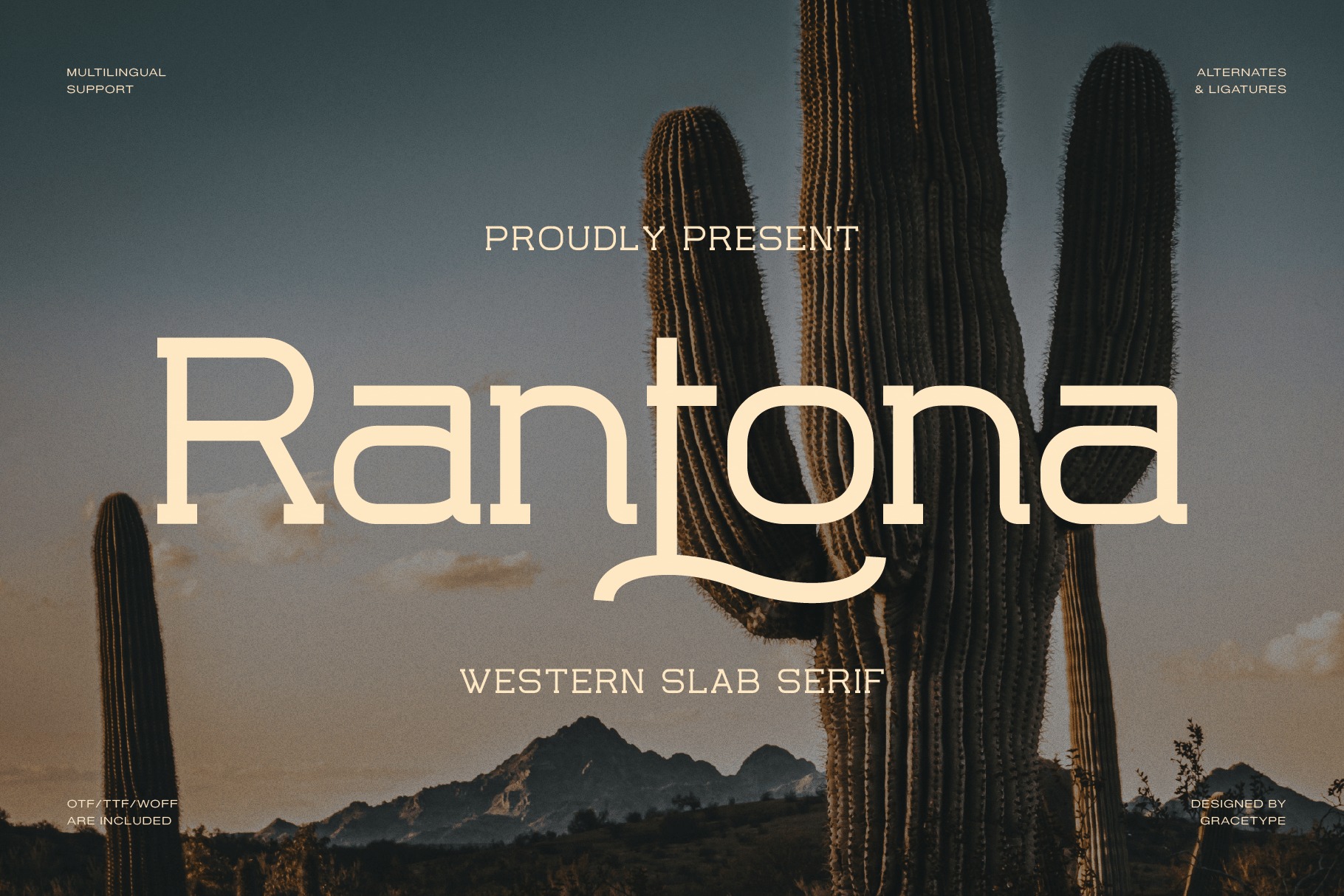
Rantona – Western Slab Serif Font
Rantona – Western Slab Serif Font is a premium-quality font developed to enhance your work with a polished, modern, and visually elevated look. Rantona | Western Slab Serif, from Denustudios, suitable for any projects such as: logos, branding projects, homeware designs, product packaging, mugs, quotes, posters, shopping bags, t-shirts, book covers, name card, invitation cards, greeting cards, label, photography, watermark, special events, and all your other lovely projects that need a Slab Serif taste.